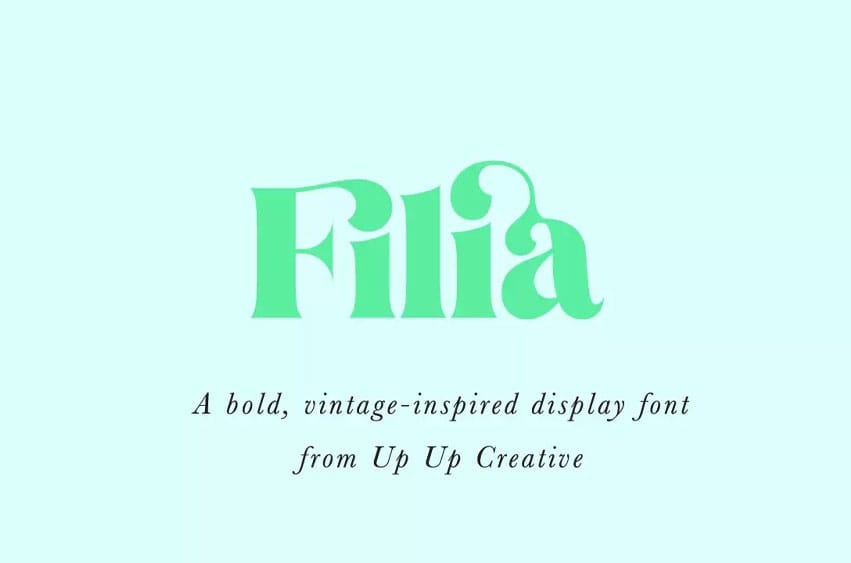
Filia Font stands out as a contemporary vintage display font that includes smooth curves along with powerful OpenType tools and functions suitable for various design needs, including editorial work and advertising projects as well as branding applications and book projects, and invitation design.
The large collection of 900 glyphs in Filia allows users to discover various typographic possibilities. The OpenType features of this font include stylistic alternates and multiple stylistic sets with elegant swashes and initial forms, together with broad multilingual support that includes various currency symbols and an optional Bitcoin symbol for added style options. Three ampersand variations, in addition to 120 standard and discretionary ligatures, are among the text features that make Filia stand out in design projects.